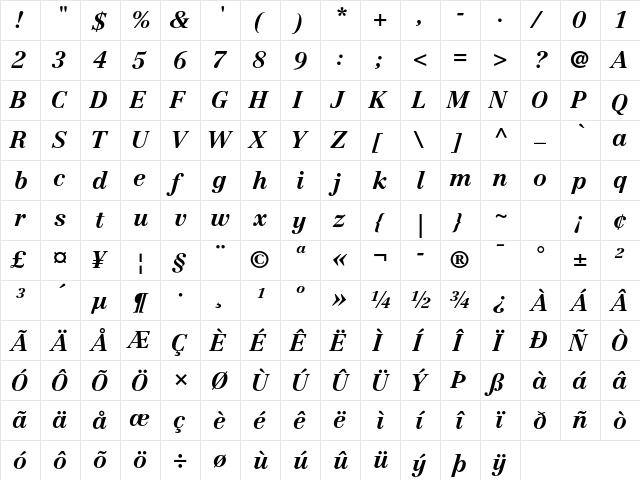
Centennial LT Std 76 Bold Italic Font Preview
| Designer | Adrian Frutiger |
Design Context for Centennial LT Std Typeface
Centennial LT Std is a composed and adaptable typeface that performs quietly and consistently across a wide range of design contexts. The dynamic lean of this cut emphasises speed and emphasis in any layout. The heavy weight commands attention and anchors typographic hierarchies.
Pro Tip: Try Centennial LT Std for annotation and caption copy alongside an upright companion — the contrast in angle creates a dynamic but ordered typographic system.